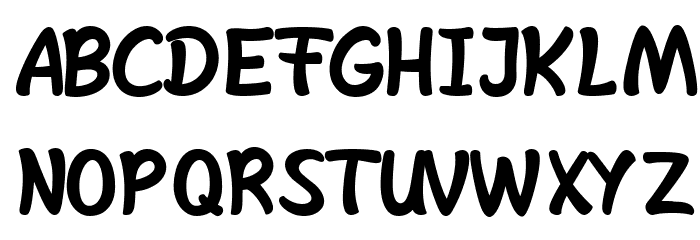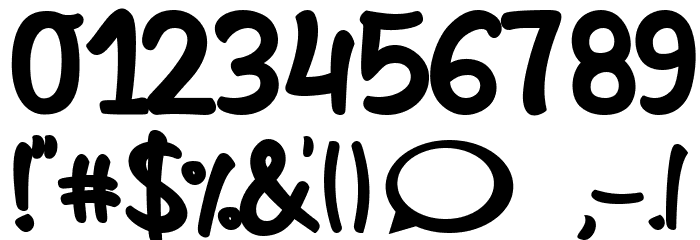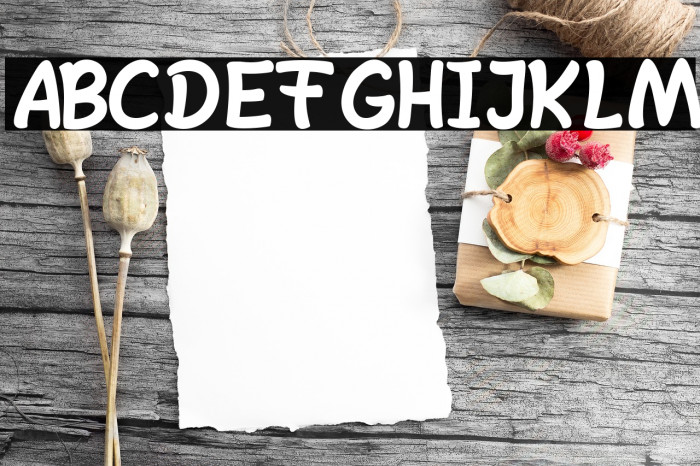
Shelta Hand* Bold Font
This font features a bold and playful handwritten style, characterized by its thick strokes and rounded edges. The letters are slightly irregular, giving it a casual and friendly appearance. The uppercase and lowercase letters maintain a consistent weight, while the numbers and special characters are designed to match the overall aesthetic. The font's informal style makes it suitable for projects that aim to convey a sense of fun and approachability.
A bold, playful handwritten font with thick strokes and rounded edges.
- Proposed Projects: Ideal for children's books, playful branding, greeting cards, and informal invitations.
- Overall Style: Playful